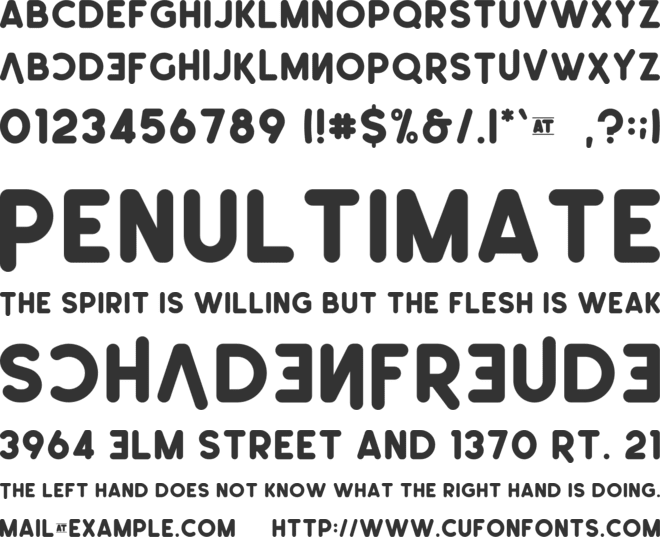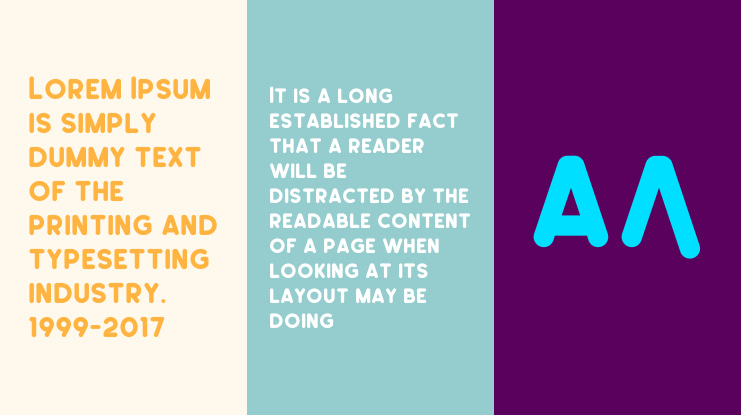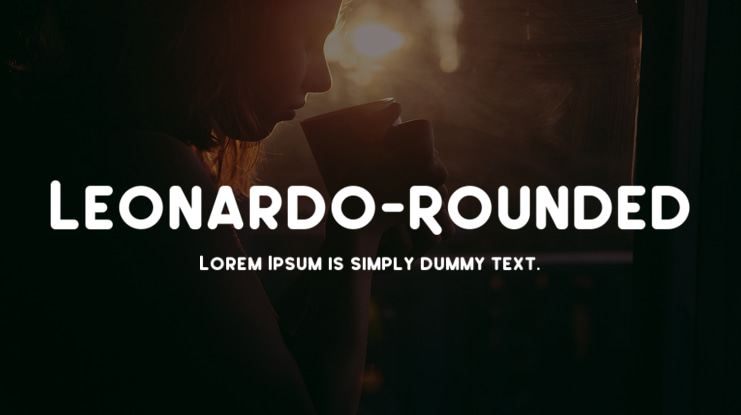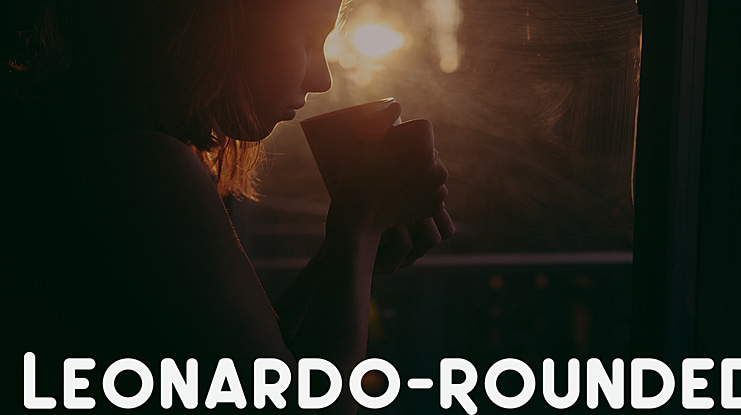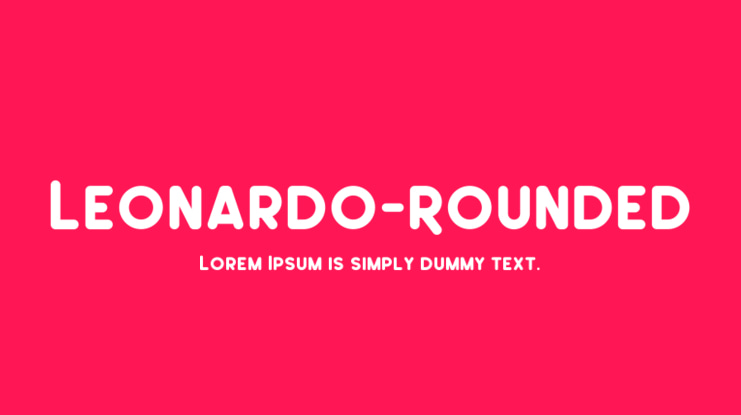
Leonardo-Rounded Font
Wahyu Setiya Rahmawan
Leonardo Rounded is the third version of the Leonardo family, a modern sans serif with a geometric touch and rounded corners. It comes in 10 weights, clean and modern caps, thereby creating more variability.
Designed with powerful opentype features in mind. Each weight includes extended language support, currency, and more. Perfectly suited for graphic design and any display use. It could easily work for web, signage, corporate as well as for editorial design.
Weights: Thin, UltraLight, Light, Regular, Medium, SemiBold, Bold, ExtraBold, Black, Heavy